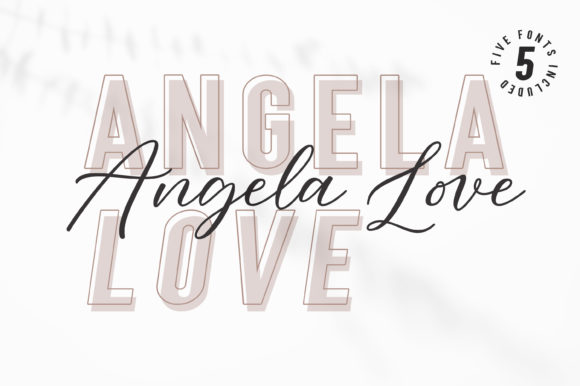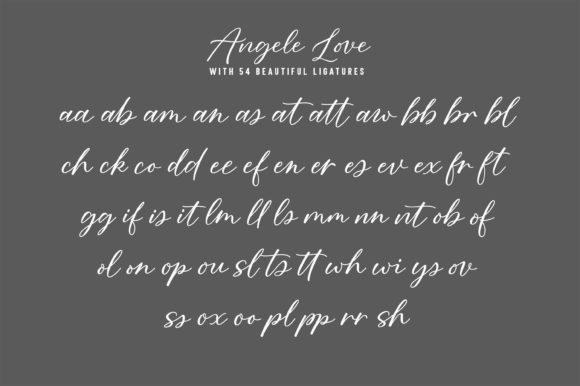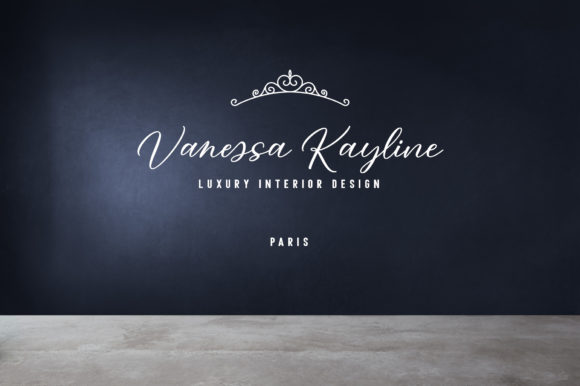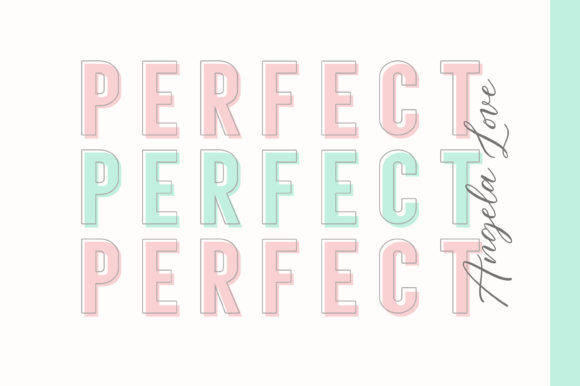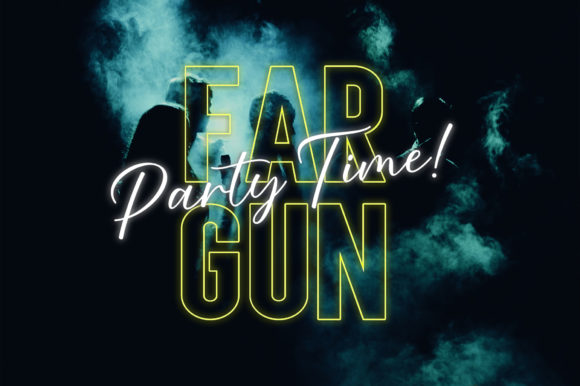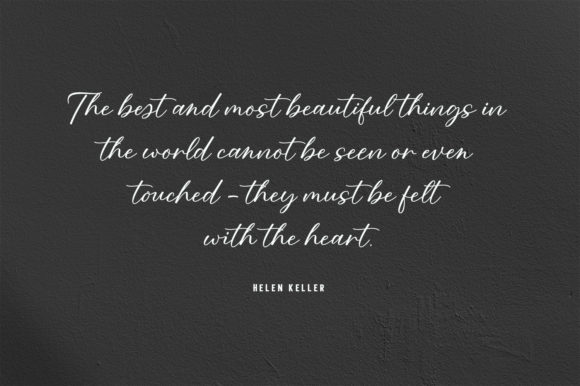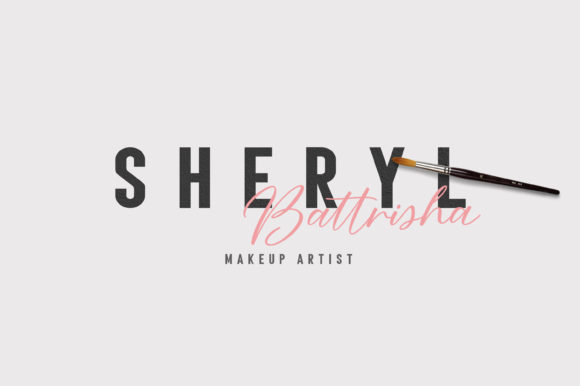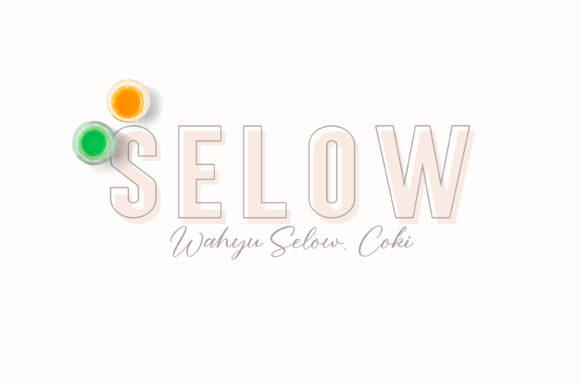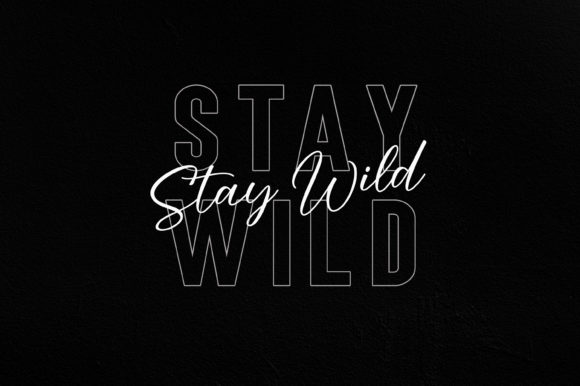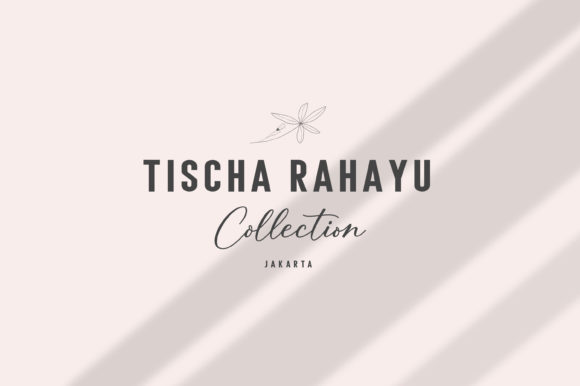
Angela Love Duo Font
Angela Love is a stunning combination of 5 fonts, each carefully designed to naturally complement one another. With 4 clean sans fonts and 1 modern script font, Angela Love gives you a hugely versatile collection of fonts – ideal for experimenting with striking & modern typographic designs in any context.